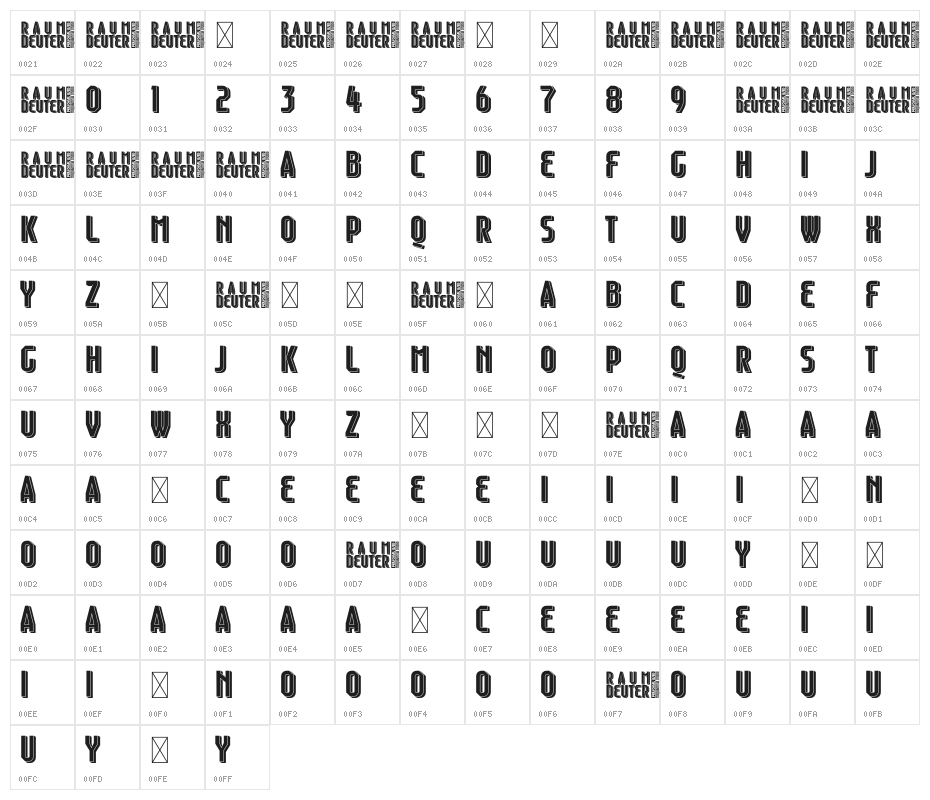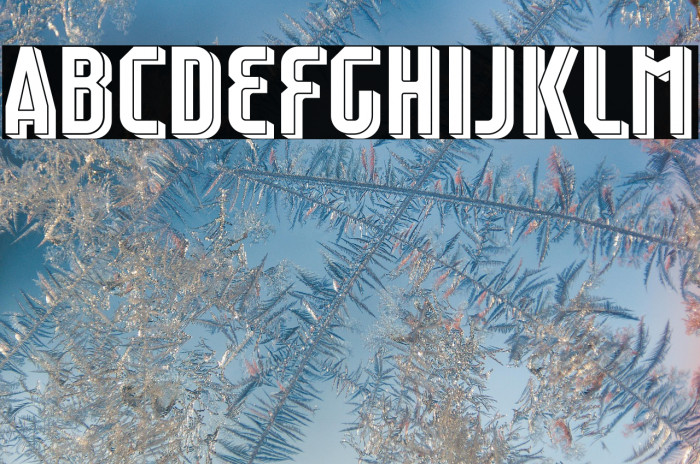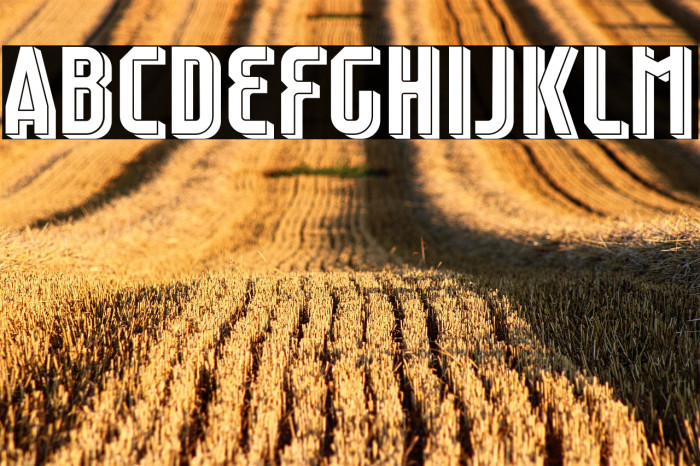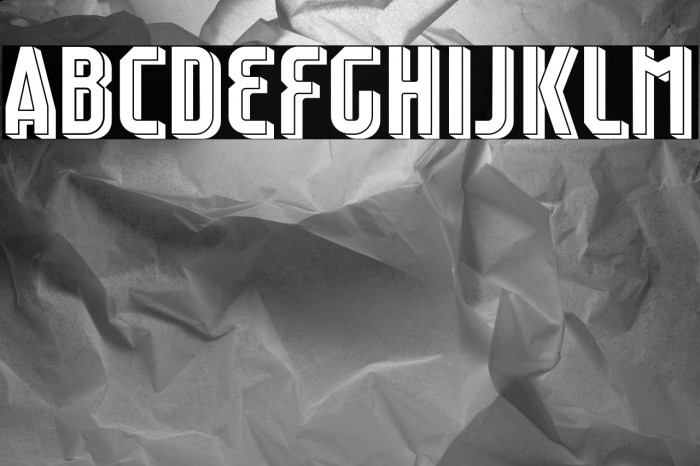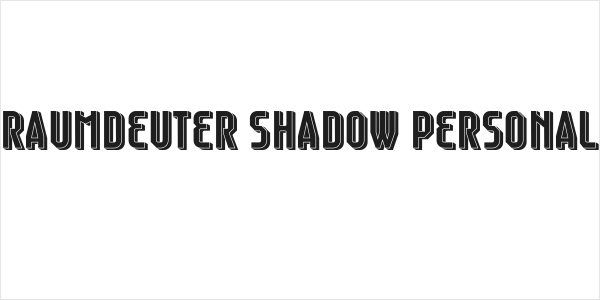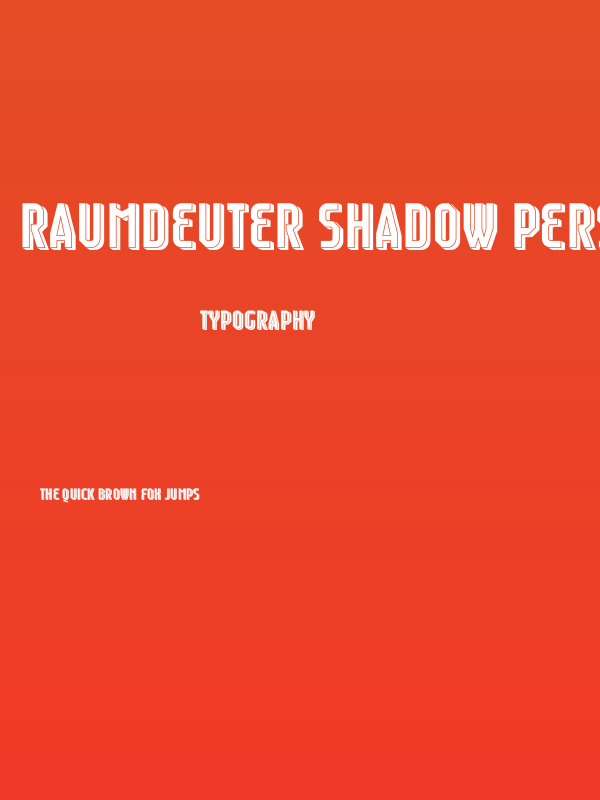
Raumdeuter Shadow Personal Font
Raumdeuter Shadow Personal Description
This font features a bold, shadowed design that gives it a striking and impactful appearance. The characters are uppercase and have a geometric, angular style with sharp edges and a three-dimensional effect created by the shadow. The numbers and special characters follow the same design principles, ensuring consistency across all elements. This font's unique style makes it ideal for attention-grabbing headlines and titles. The shadow effect adds depth, making the text stand out prominently against various backgrounds.
| Proposed Projects | This font is perfect for posters, logos, branding, and any design project that requires a bold, impactful statement. |